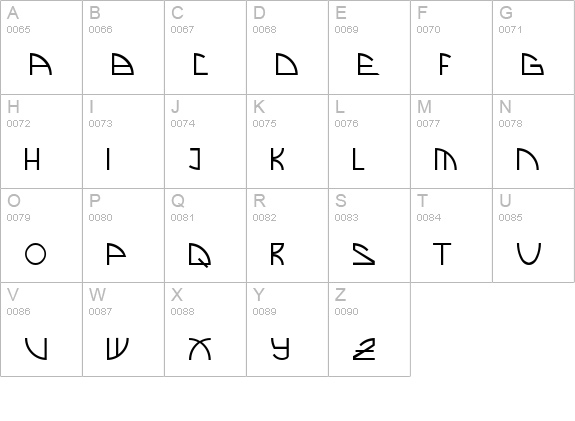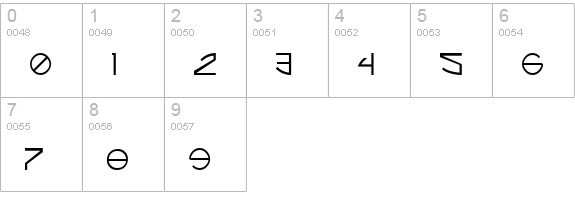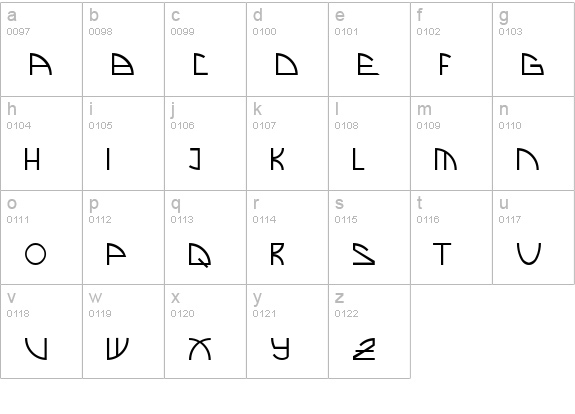
Brand New Font Details
Introducing Brand New font, a modern and sleek typeface designed to elevate your design projects to the next level. This versatile font is perfect for branding, logos, posters, and more with its clean lines and contemporary aesthetic. The best part? Brand New font is completely free to download at FontsMarket.com, making it accessible to all designers looking to add a touch of sophistication to their work. Embrace the creativity and style that Brand New font brings to your designs today!